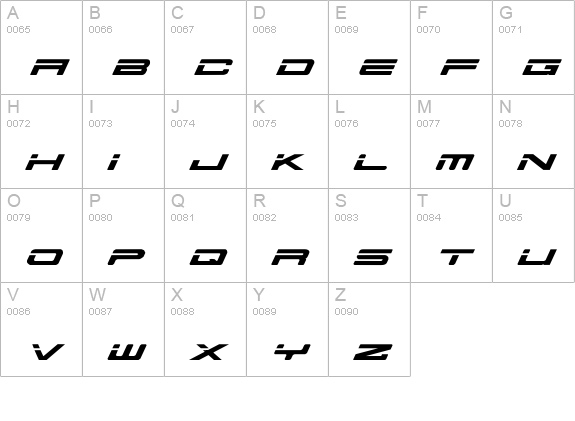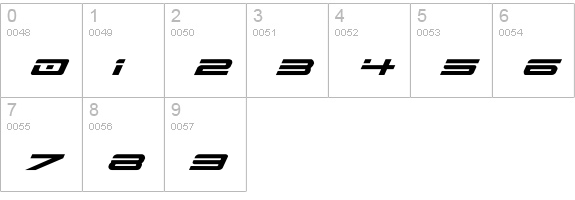
AusPROBE Font Details
Introducing AusPROBE font, a modern and sleek typeface designed to bring a touch of sophistication to your projects. With its clean lines and elegant curves, AusPROBE is perfect for a wide range of design applications, from branding to editorial design. This versatile font exudes a sense of professionalism and style, making it ideal for both digital and print projects. The best part? AusPROBE is available for free download at FontsMarket.com. This means you can elevate your designs without breaking the bank. Whether you're working on a personal project or a client commission, AusPROBE is sure to impress with its timeless appeal and effortless charm. Download AusPROBE today and let your creativity soar with this stunning font!